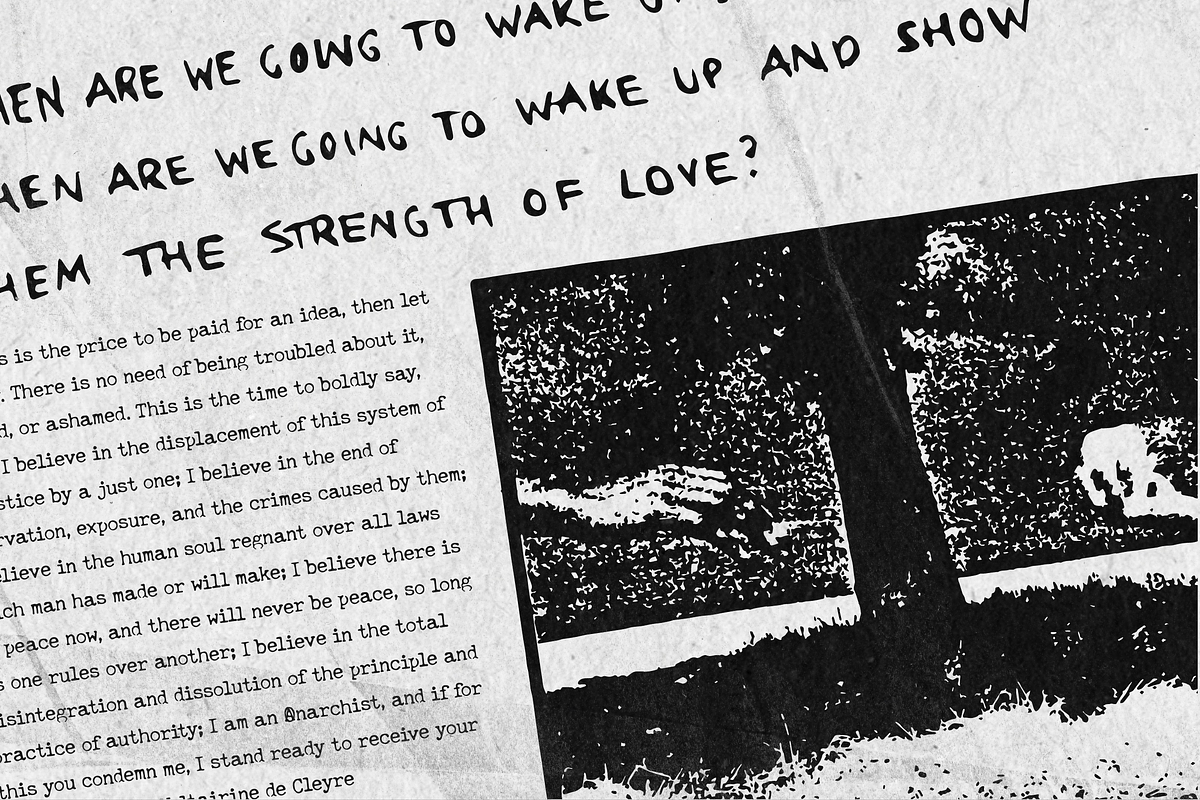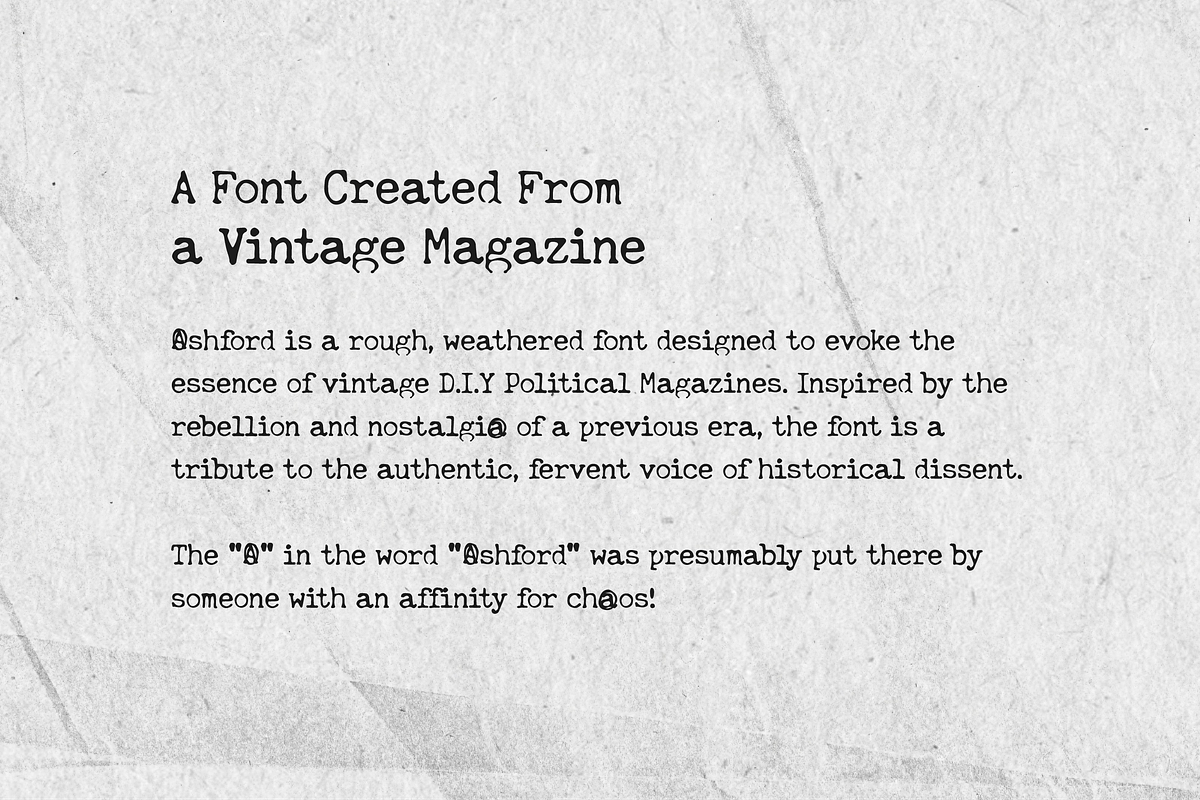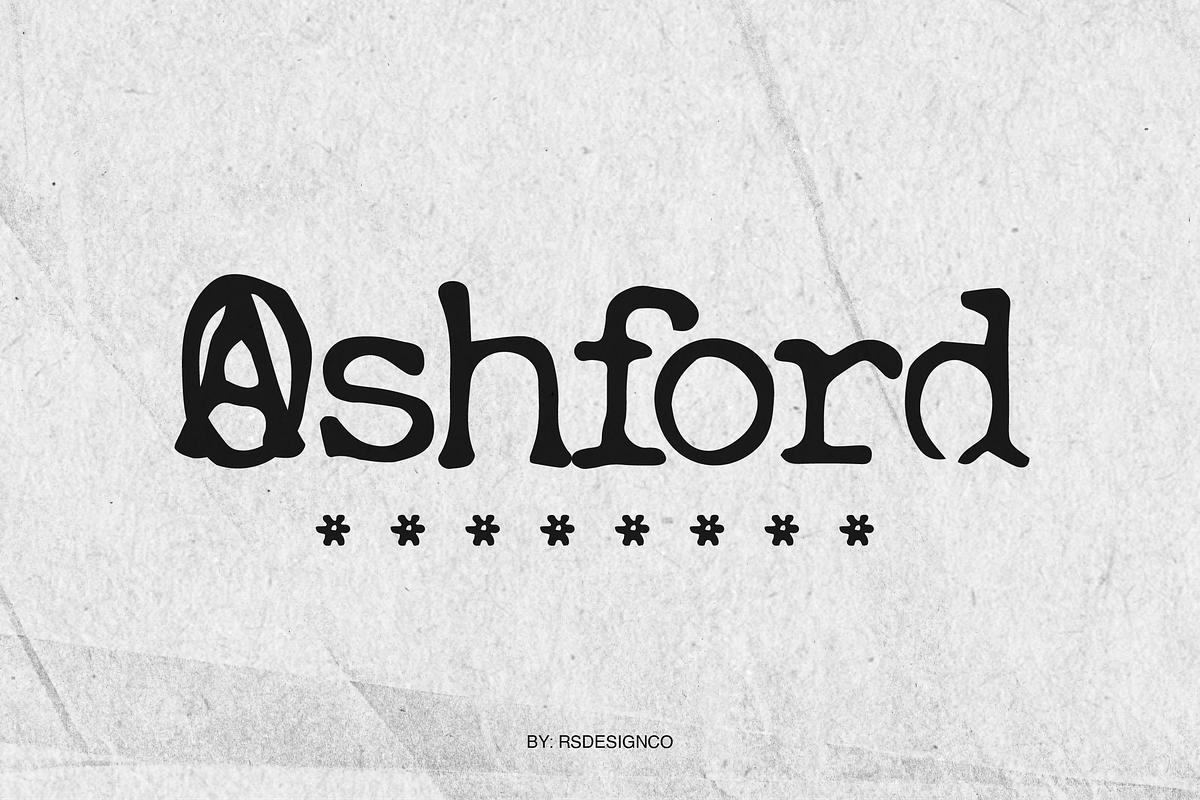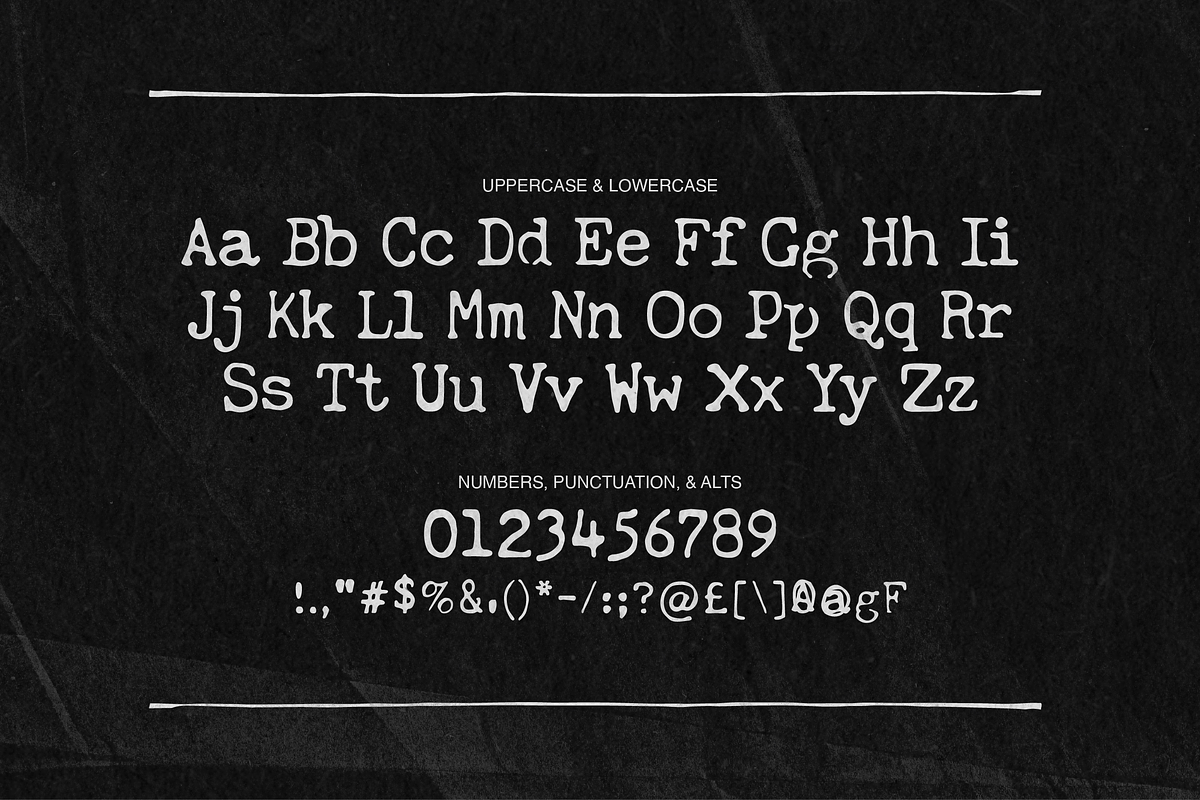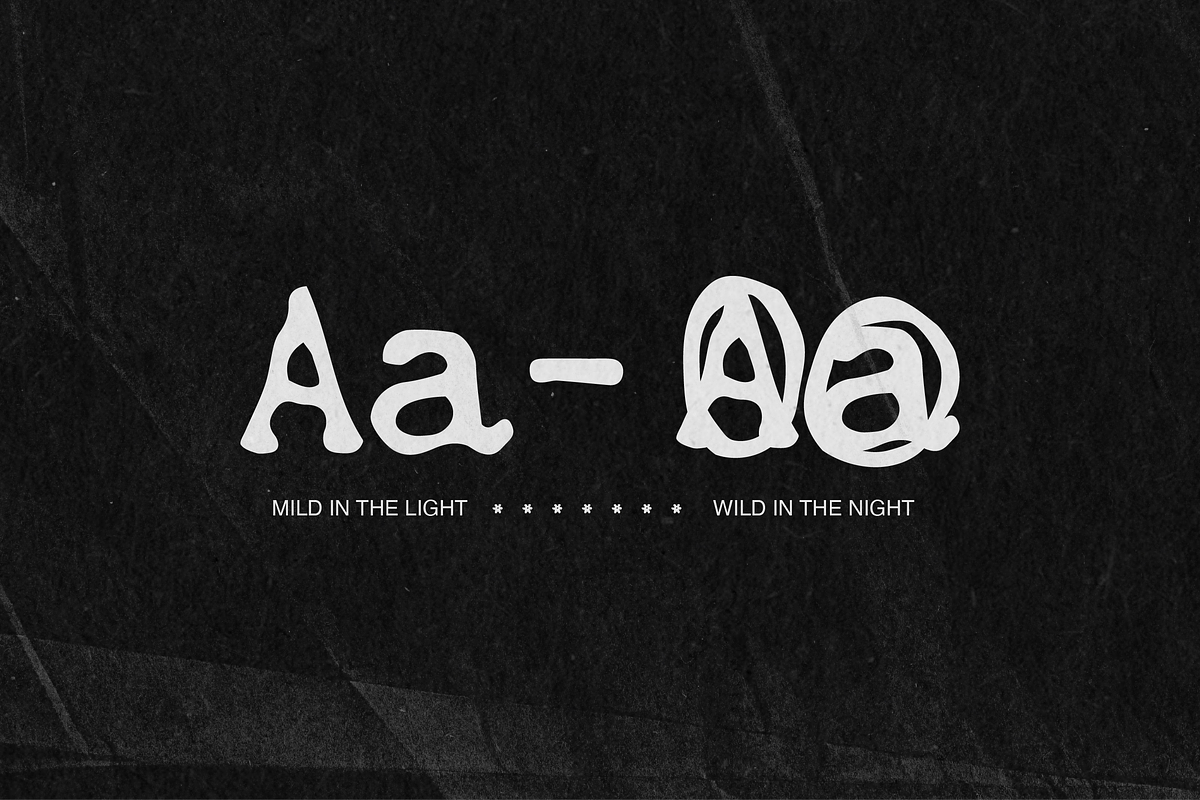
Ashford | D.I.Y. Weathered Serif
Ashford is a rough, weathered typeface that captures the raw energy of vintage DIY political magazines. Inspired by the rebellious spirit and nostalgia of past movements, this font is a love letter to the unfiltered, unapologetic voices of the past. The imperfect, hand-drawn edges bring a gritty, cut-and-paste authenticity—perfect for anyone looking to make a bold, uncompromising statement.
- Punk zines & underground posters
- Bold editorial layouts
- Grunge-inspired branding
- Vintage-style album covers
- Anything that needs a little edge
- Uppercase and lowercase (A-Z, a–z) characters with rough, weathered edges
- Numbers, punctuation, and even alternate characters for extra gritty customization
Embrace the chaos. Make some noise with Ashford! ✂️🔥